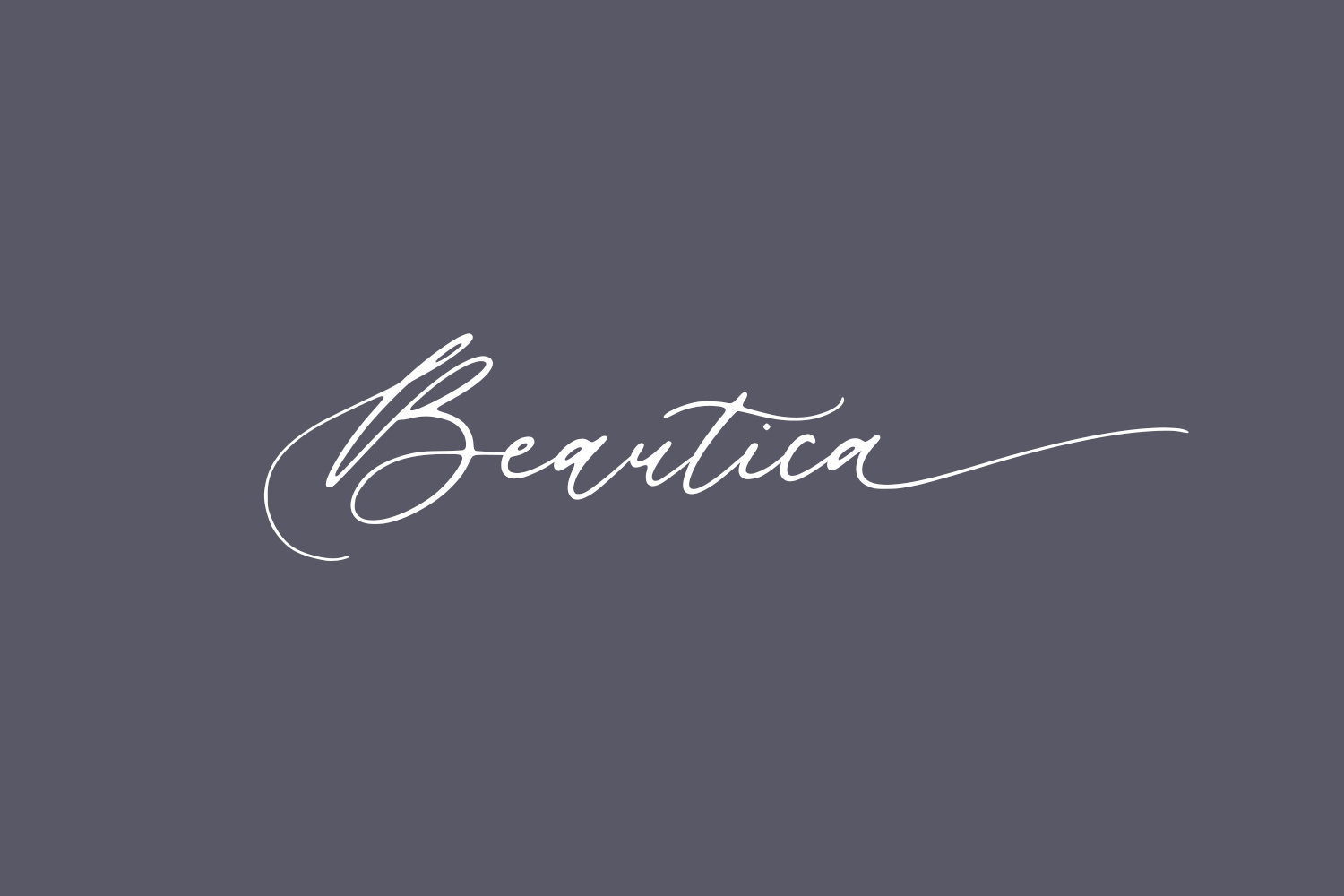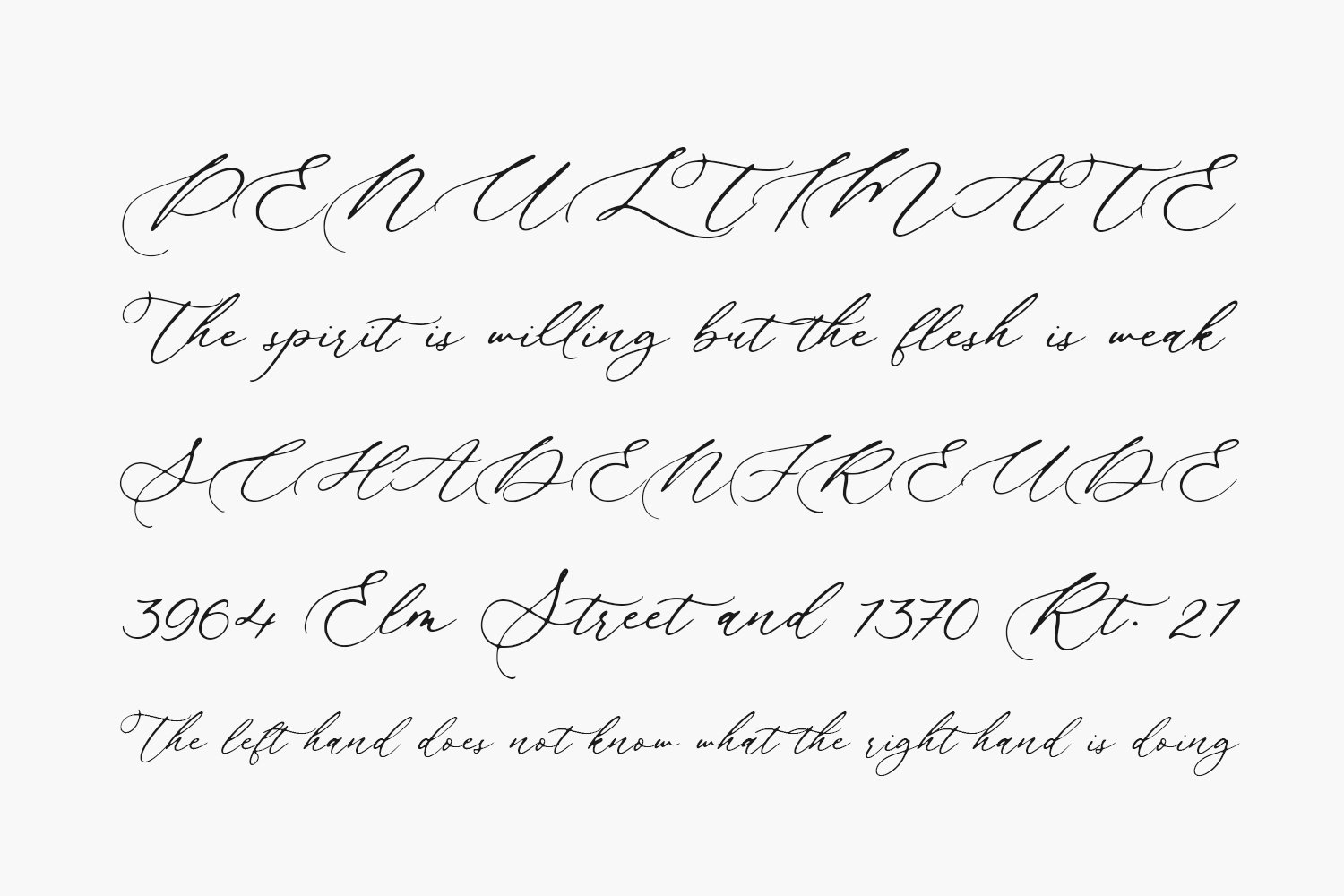
The flowing, elegant strokes of the Beautica Free Font dance across the page, creating a sense of fluidity and grace. Each letter is crafted with care as if written by the most skilled and passionate of calligraphers. The font evokes a sense of beauty and emotion, making it the perfect choice for any project that requires a touch of elegance and refinement.